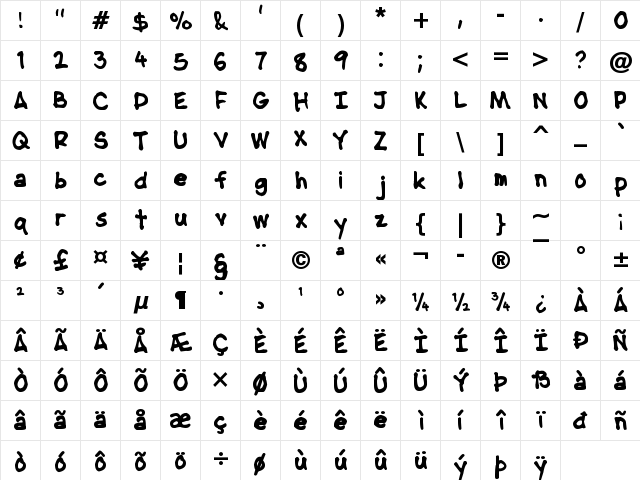
NipCen's Handwriting Bold Bold Font Preview
Design Context for NipCen's Handwriting Bold Typeface
NipCen's Handwriting Bold flows with the natural rhythm of handwritten lettering, making it ideal for designs that call for warmth and personal expression. The heavy weight commands attention and anchors typographic hierarchies.
Font Pairing: Combine NipCen's Handwriting Bold with a simple geometric sans for maximum contrast — the tension between flowing curves and clean structure is a classic typographic pairing.
Pro Tip: Pair NipCen's Handwriting Bold with a clean sans-serif for supporting text. The contrast between fluid script and geometric structure creates an elegant typographic hierarchy.